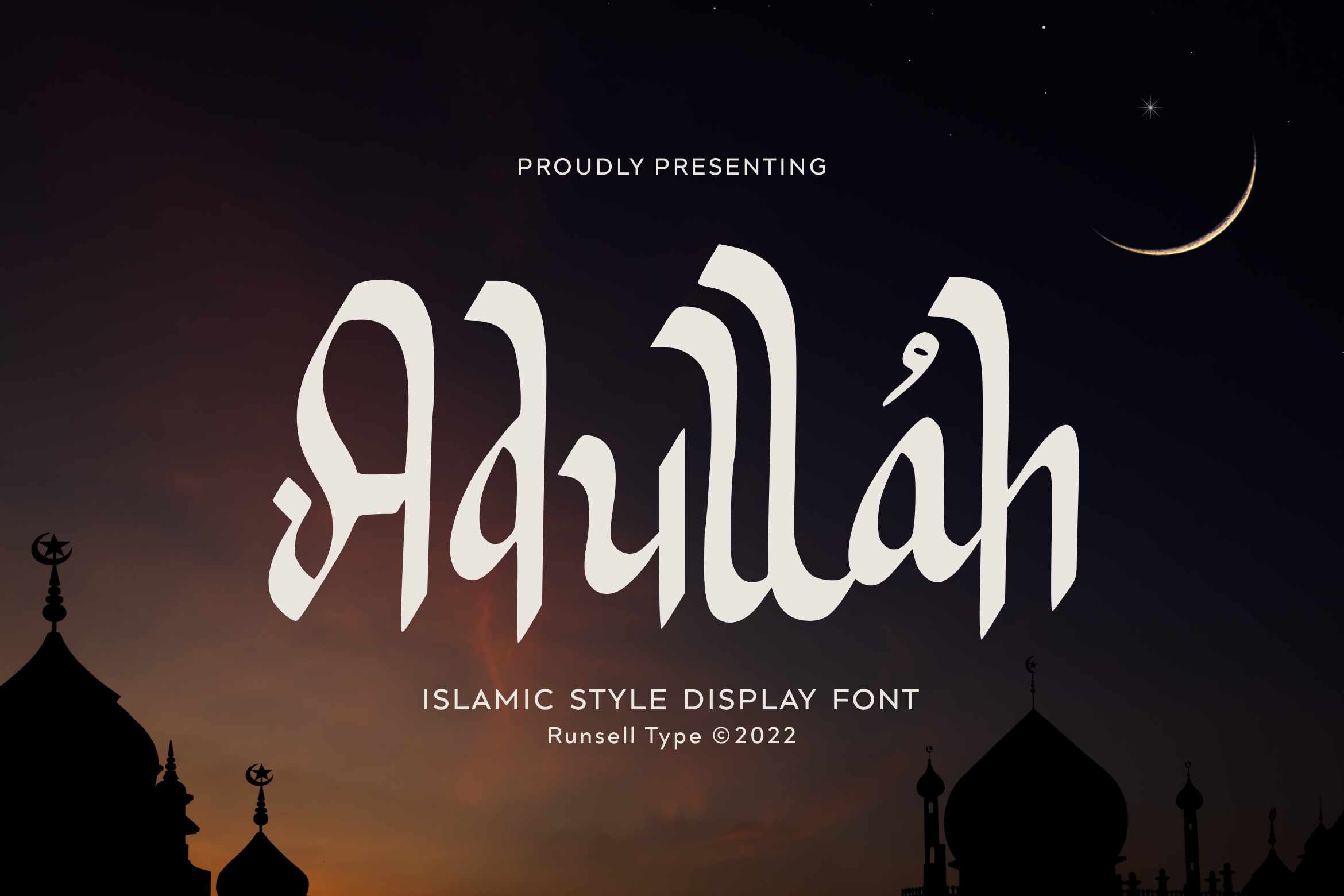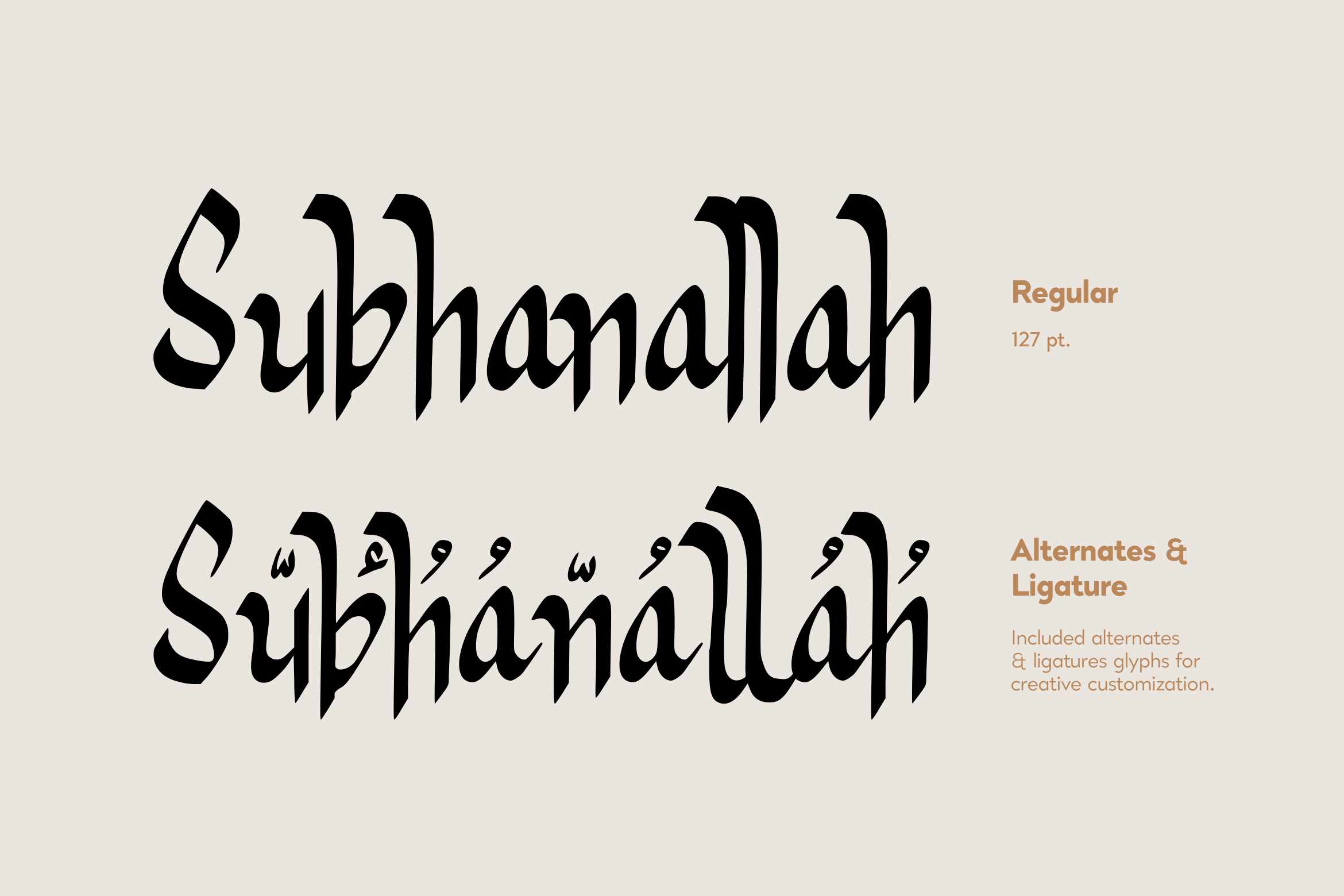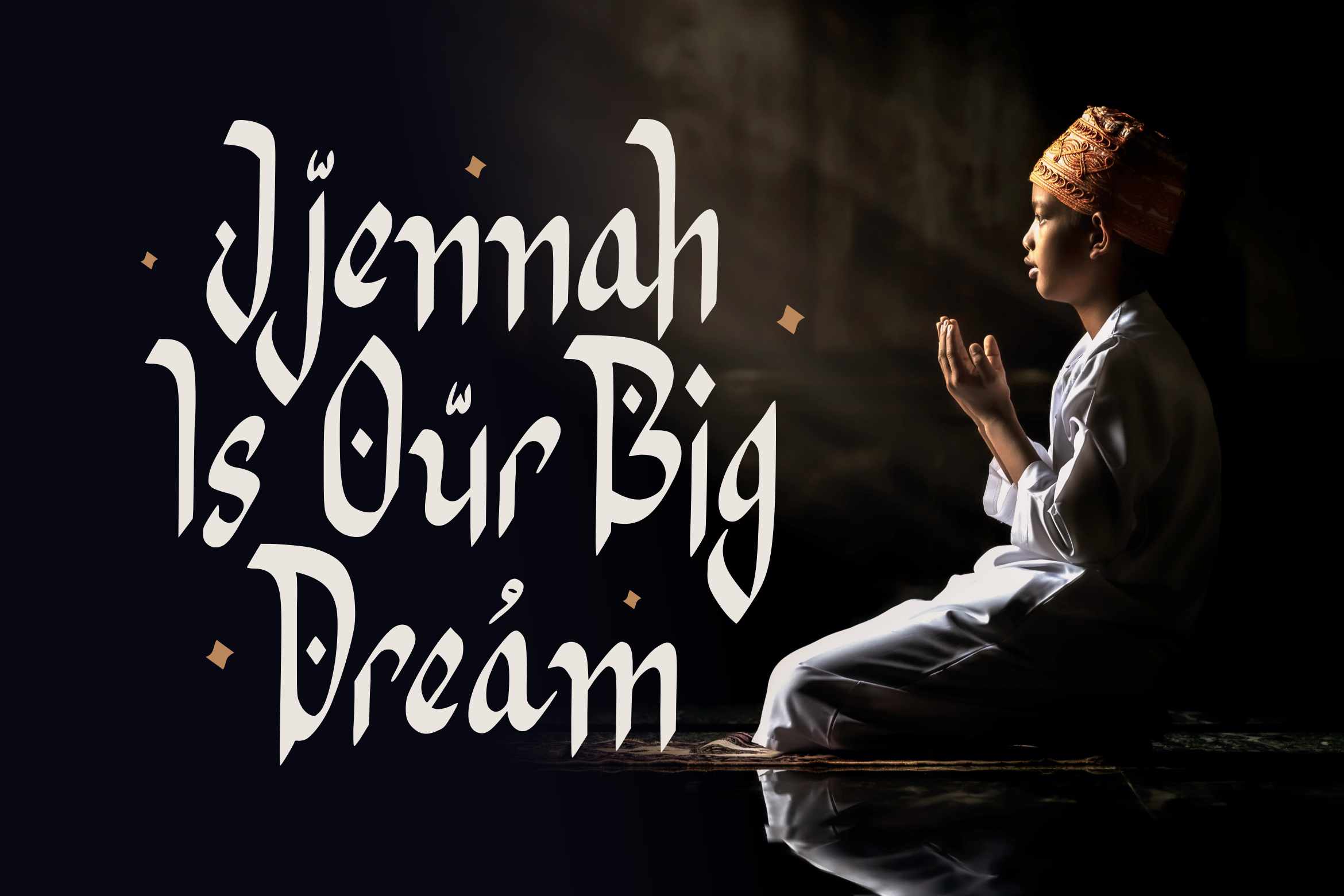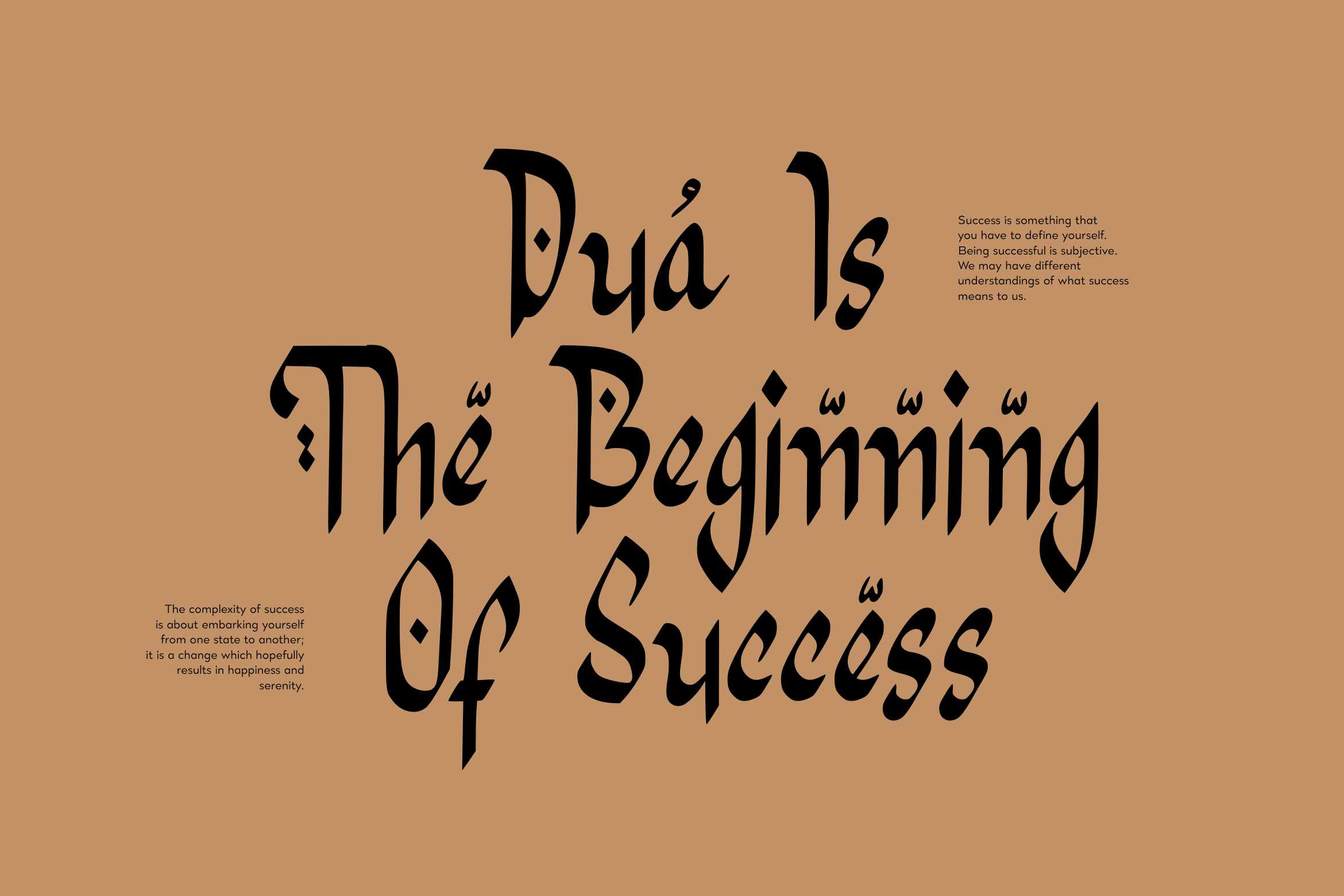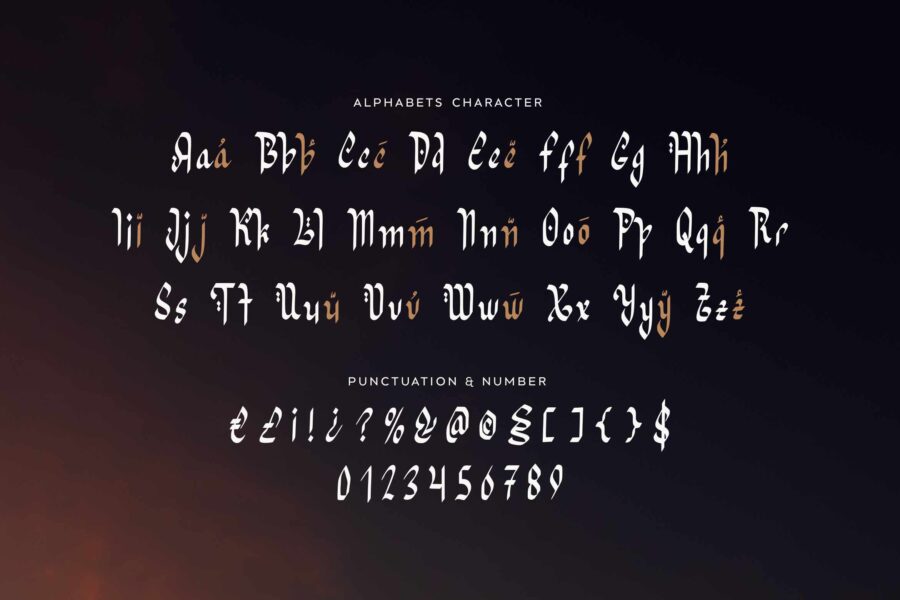
Adullah is a bold Islamic-style display font inspired by the elegance of Arabic calligraphy and the strength of Gothic typefaces. Its unique character shapes, tall ascenders, and ornamental diacritics evoke a sense of reverence, spirituality, and historical depth—perfectly suited for Islamic-themed visuals and religious expressions.
Crafted with a deep appreciation for Arabic script aesthetics, Adullah combines Latin readability with ornamental flair, making it an excellent choice for branding, posters, editorial titles, Ramadan campaigns, and inspirational quotes. The font comes with alternates and ligatures to give your designs a custom, handcrafted appeal.